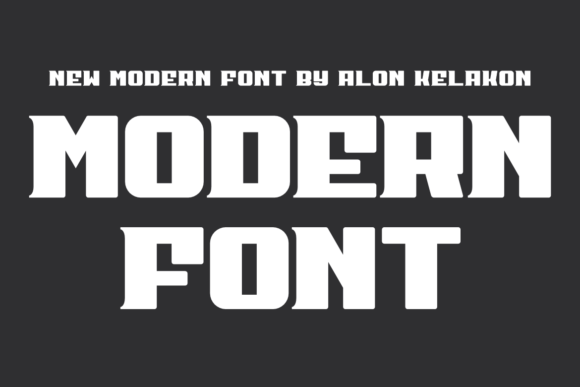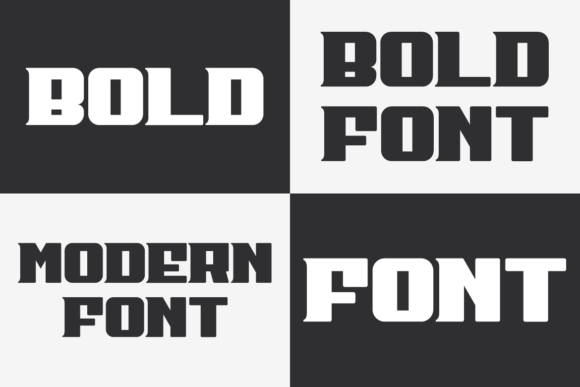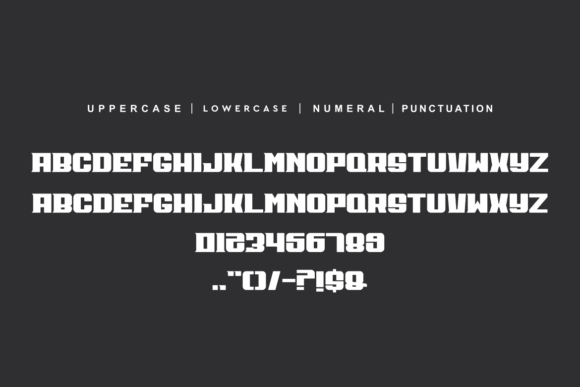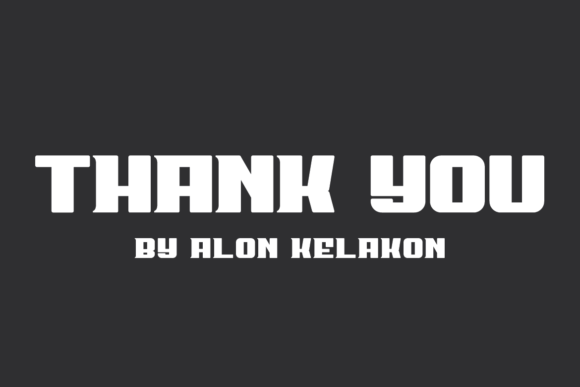
Introduction to Progen Squiren Font
Have you ever been stuck on a creative project, struggling to find the perfect font to bring your vision to life? You’ve spent hours browsing through countless options, but nothing seems to capture the essence of your design. That’s where the Progen Squiren Font comes in – a unique and modern display font designed to elevate your creative projects to the next level.
Whether you’re a seasoned designer or just starting out, the Progen Squiren Font is a valuable resource that can take your designs from good to great. With its high-quality design and transparent background, you can easily integrate it into your projects, from labeling and clothing to movie scenes and poster designs. And the best part? It’s available for free download, making it an accessible design resource for designers of all levels.
Key Features of Progen Squiren Font
- High-quality font design perfect for creative projects, including posters, logos, and more.
- Unique, modern design with a transparent background, allowing for seamless integration into any design project.
- Designed to be a versatile design resource, suitable for a wide range of creative projects and applications.
Honest Review: Progen Squiren Font
Here are some features that I particularly love about the Progen Squiren Font:
- ✨ High-quality design that’s perfect for professional and personal projects
- ✨ Transparent background, making it easy to work with in any design scenario
- ✨ Versatile and modern design that’s suitable for a wide range of creative projects
- ⚠️ Limited character set, which may not be suitable for complex text-based projects
- ⚠️ Not ideal for projects that require a lot of customization or editing
Tips for Getting the Most Out of the Progen Squiren Font
To get the most out of the Progen Squiren Font, experiment with different font sizes, colors, and styles to create a unique look. You can also pair the font with other design elements, such as images or graphics, to create a visually appealing design.
The Progen Squiren Font is ideal for a variety of creative projects, including social media graphics, blog posts, presentations, reports, and documents. Its high-quality design makes it perfect for businesses, entrepreneurs, and individuals looking to elevate their brand’s visual identity.
When compared to Progen Squiren Font, Great Vibes Font offers a more refined, sophisticated look, making it suitable for high-end design projects. However, it lacks the playful, quirky feel of Progen Squiren Font.